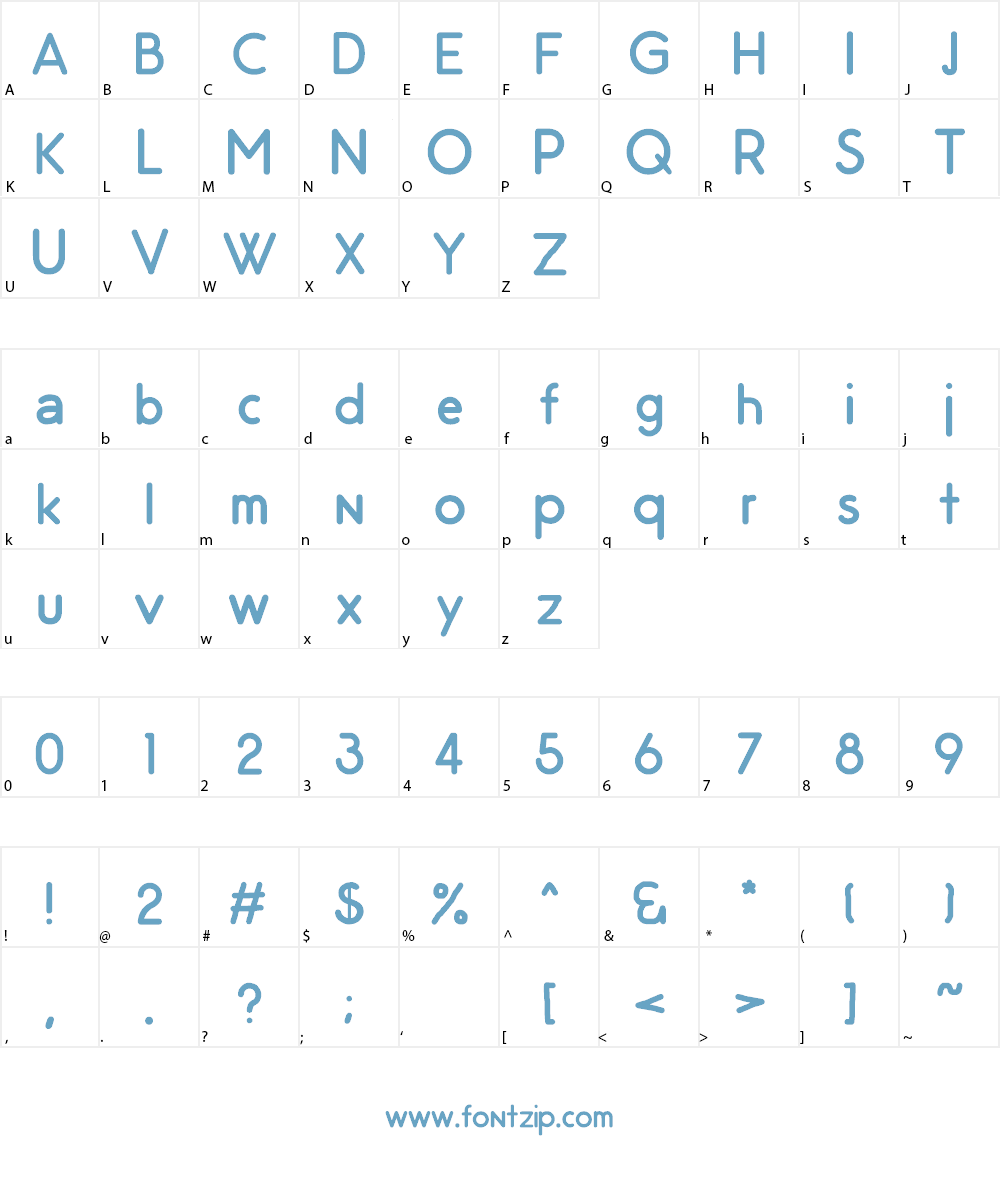
This is a remake of the font from the educational website ABCya!.com
It is been used in Counting Money, Learning Coins, and Math Lines - Addition, and Multiplication.
How I made this was I went into the website ABCya.com, and went into Counting Money, Learning Coins, and Math Lines, One of the games that are separate into parts, like 2.
I made the glyphs using the Import Image tool, and modified them to make it look like the real thing. I cut the glyphs into 1 part on Snipping Tool, then put them together on Paint, the letters are sometimes 3 or 6 glyphs, each glyph was done on Snipping Tool. Some glyphs that are not seen on either of those 3 games were made by the Free-Draw tool.